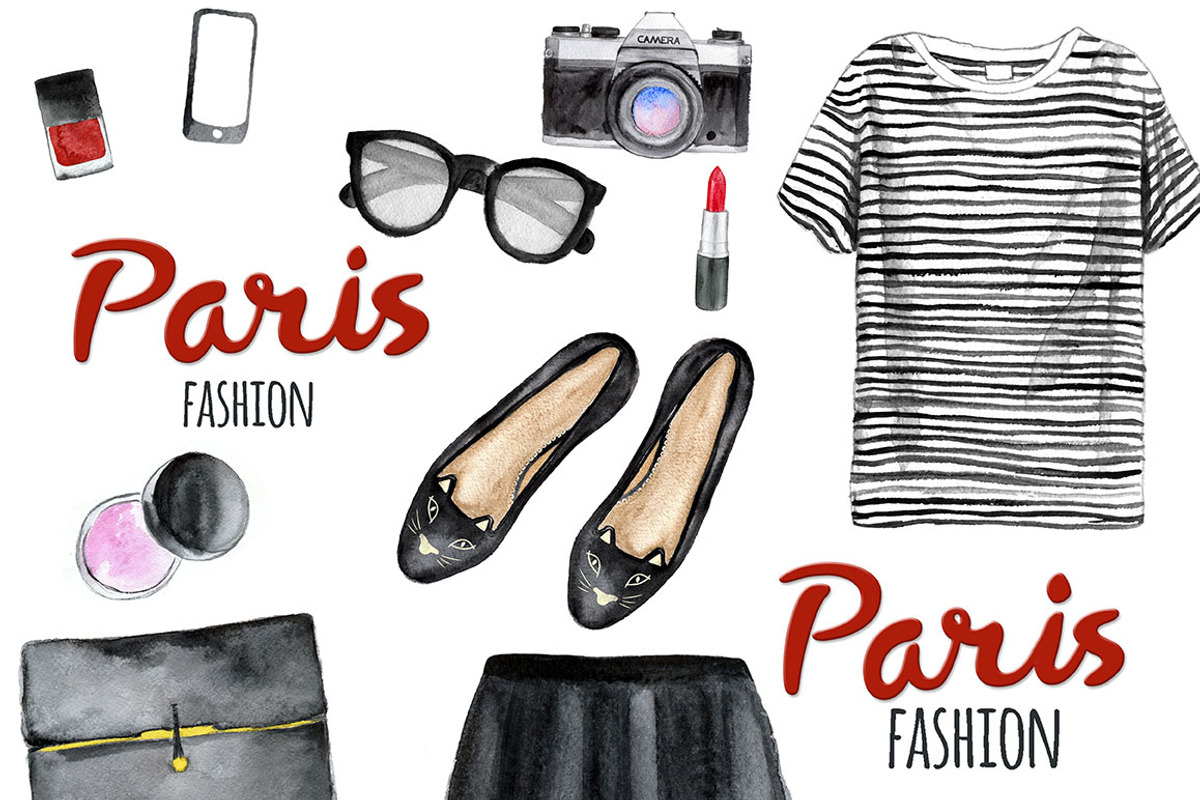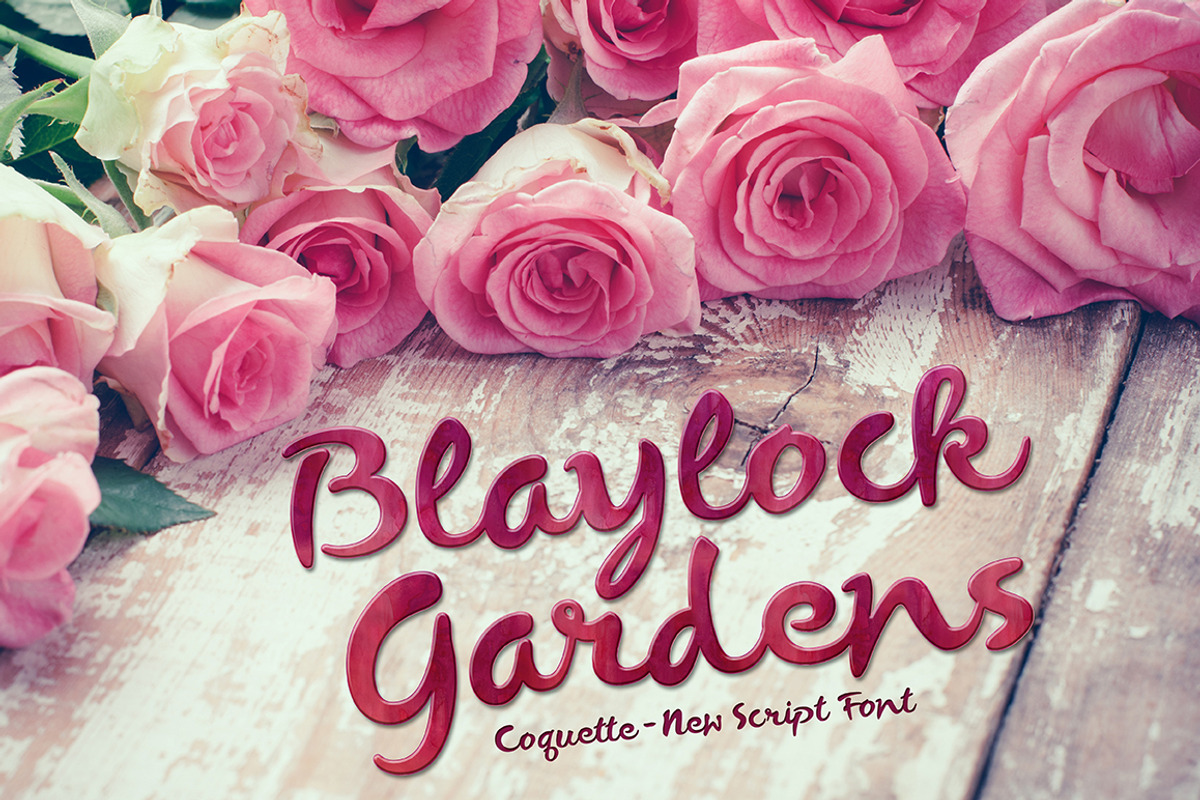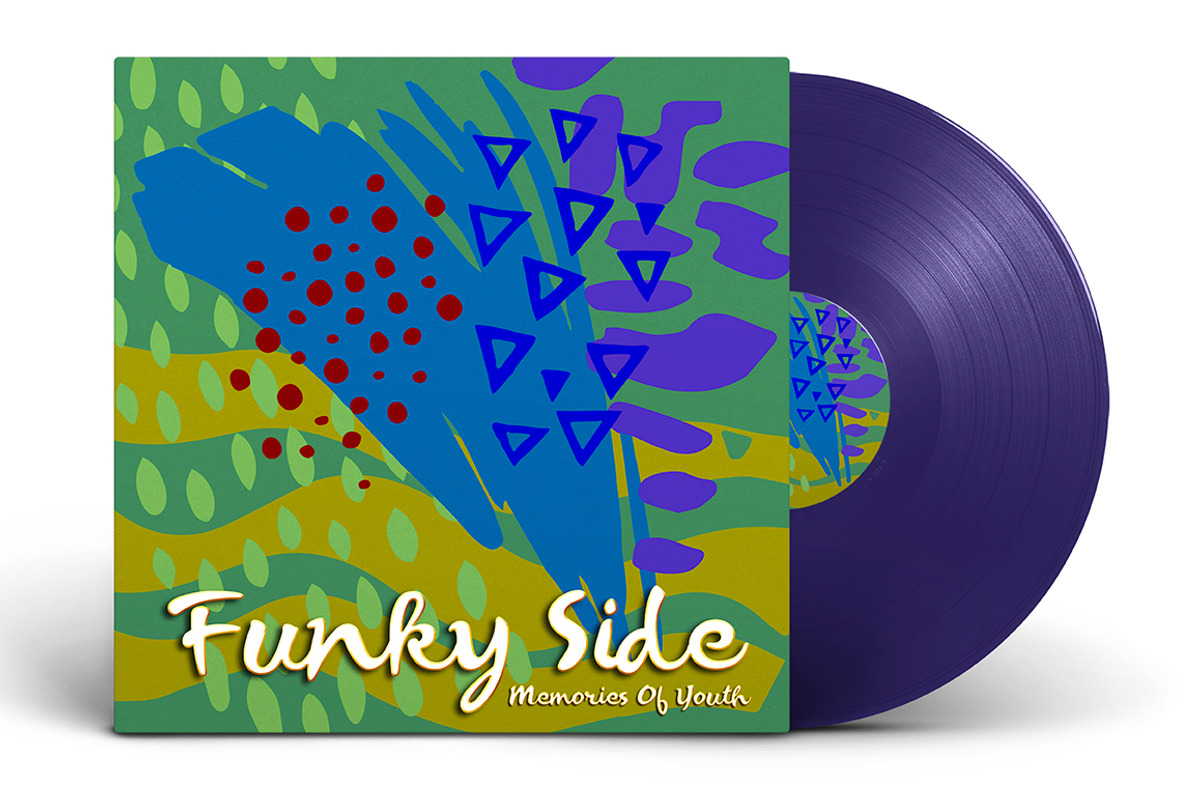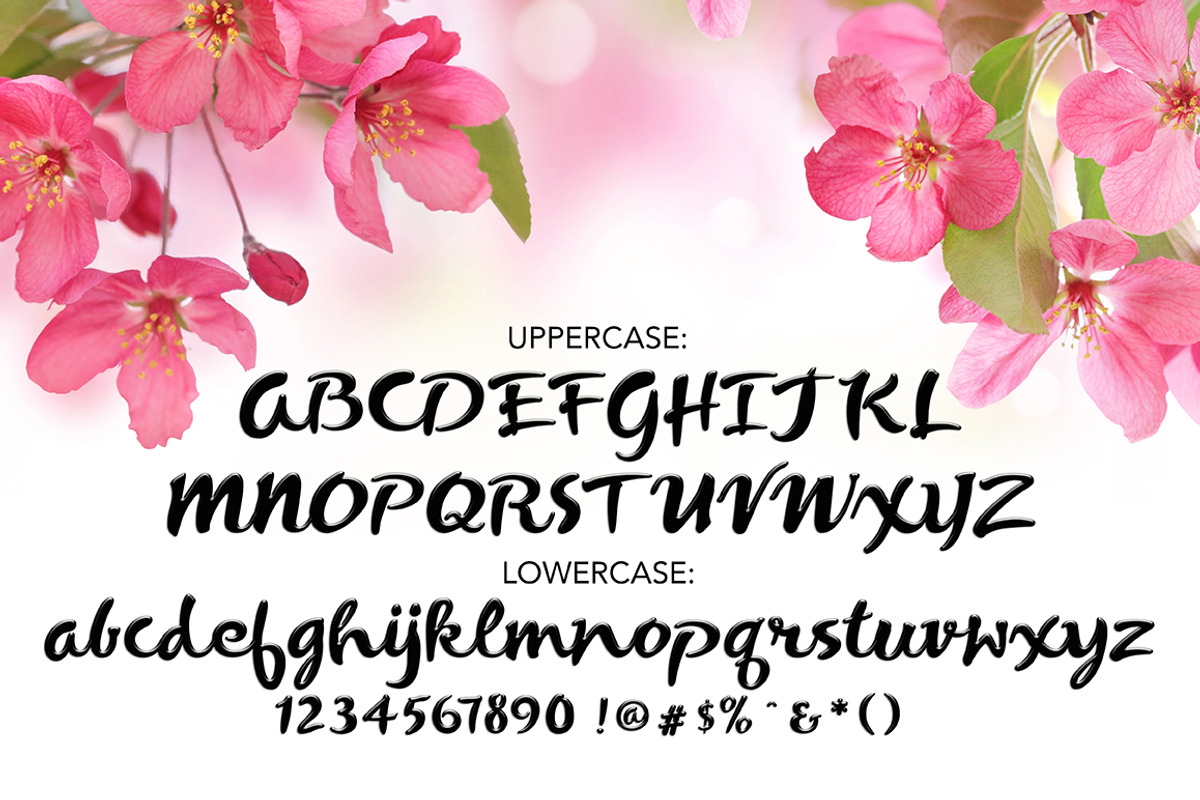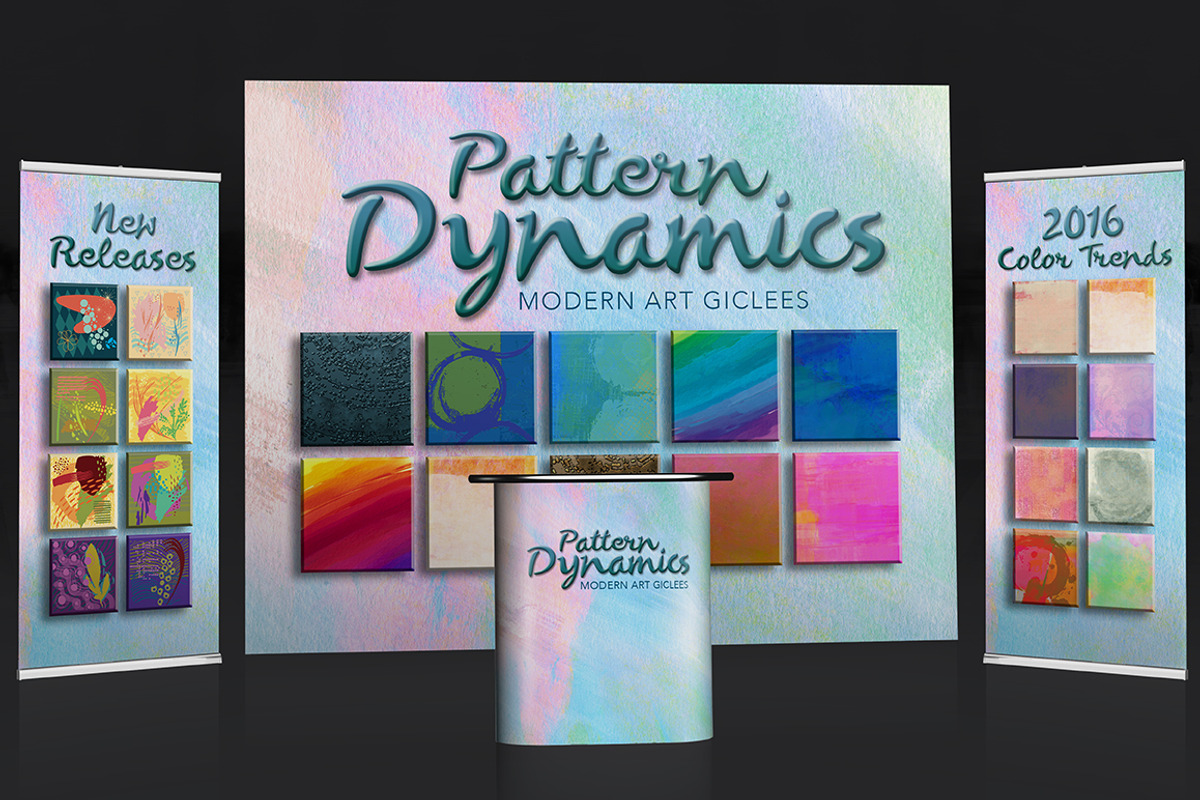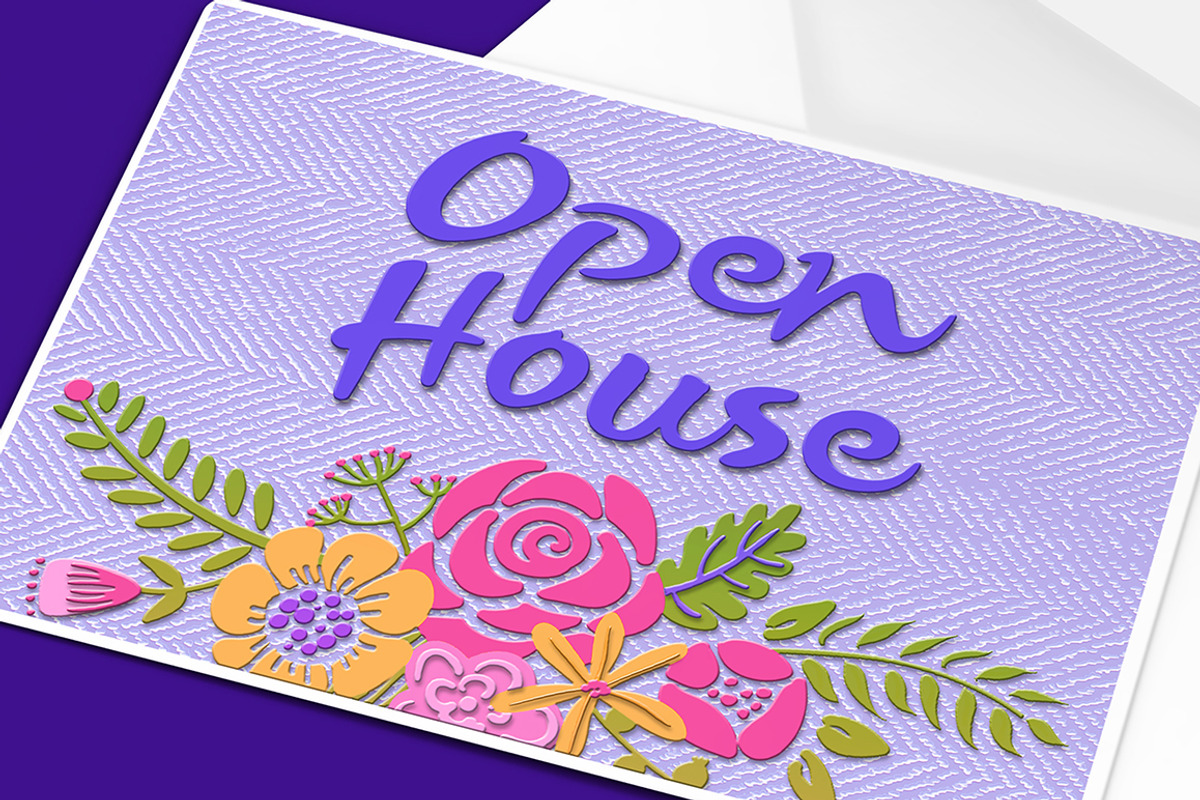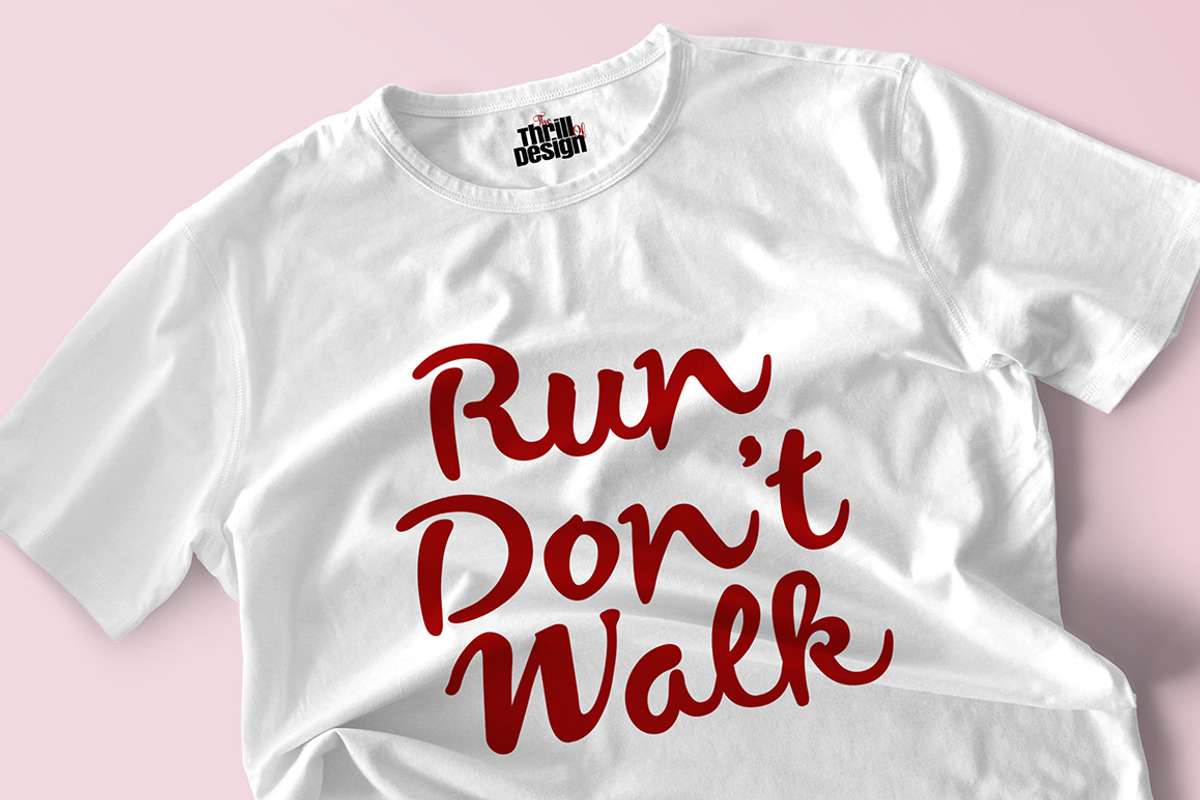
Coquette Script Font
Coquette Script Font by The Thrill of Design is a font selected for branding, posters, packaging, typography.
Why Coquette Script Font is worth a look
Coquette Script Font by The Thrill of Design fits naturally into Branding, posters, packaging, typography.